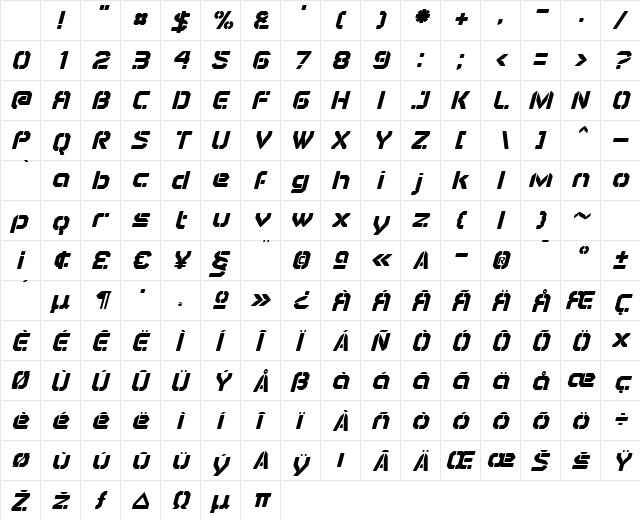
Complete Airbrake RoundedOblique glyph index. Displaying only characters natively supported by Airbrake RoundedOblique font.
Airbrake softens its letterforms with rounded terminals, giving it an approachable, friendly quality that works well in consumer-facing and digital contexts. The slanted form adds forward momentum and visual energy.
Font Pairing: Pairs well with a rounded or humanist sans for body copy, maintaining the friendly tone without relying on Airbrake to carry extended reading.